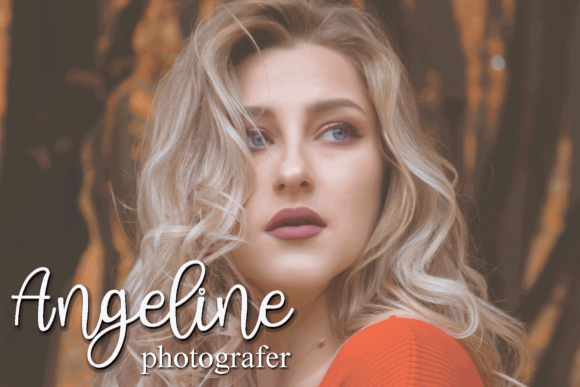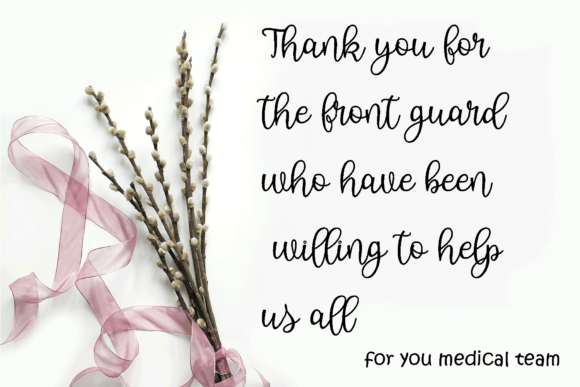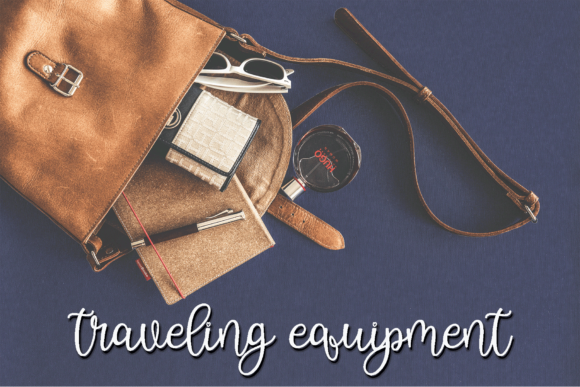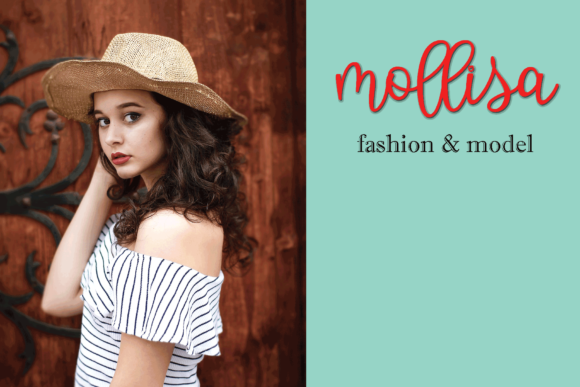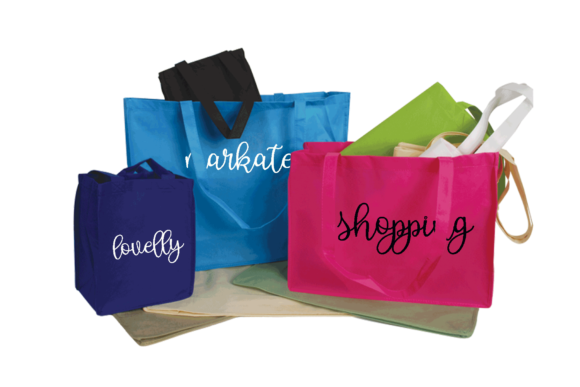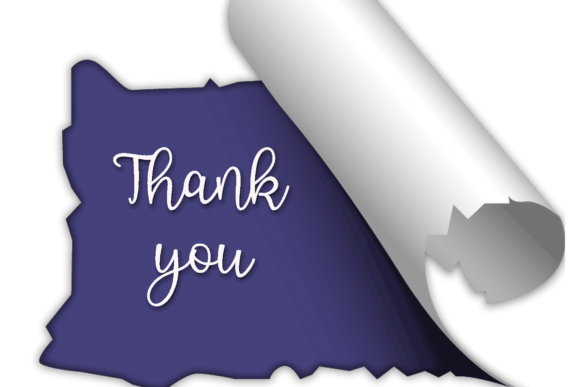
Introducing Handmade Font: Add a Touch of Whimsy to Your Designs
Are you tired of using the same old fonts in your designs? Do you want to add a personal touch that sets your work apart from the rest? Look no further than Handmade Font, a sweet and rounded calligraphy handwritten font that’s perfect for crafters, designers, and anyone looking to add a decorative touch to their projects.
What is Handmade Font?
Handmade Font is a beautifully crafted font that’s designed to bring a touch of whimsy and elegance to your designs. With its rounded calligraphy style, this font is perfect for creating eye-catching headings, titles, and text that will make your work stand out. Whether you’re designing a logo, creating a social media graphic, or crafting a handmade product, Handmade Font is the perfect choice.
Special Features to Enhance Your Designs
Handmade Font is more than just a beautiful font – it’s also packed with special features that will take your designs to the next level. Some of the features you can expect include:
- Alternate glyphs: Add some variety to your text with alternate glyphs that offer different styles and flair.
- Ligatures: Create beautiful connections between letters with ligatures that add a touch of elegance to your text.
- Swashes: Add a decorative touch to your text with swashes that can be used to create beautiful flourishes and borders.
Handmade Font is versatile and can be used for a wide range of design projects, including:
- Logo design: Create a beautiful and eye-catching logo that showcases your brand’s personality.
- Social media graphics: Add a personal touch to your social media graphics and make them stand out from the crowd.
- Handmade products: Add a touch of elegance to your handmade products, such as craft labels, packaging, and more.
- Stationery: Create beautiful stationery, including invitations, greeting cards, and more.
Why Choose Handmade Font?
With so many fonts to choose from, why should you choose Handmade Font? Here are just a few reasons why:
- Unique and eye-catching: Handmade Font is a unique and eye-catching font that will make your designs stand out from the crowd.
- Versatile: Handmade Font can be used for a wide range of design projects, making it a great addition to any designer’s toolkit.
- High-quality: Handmade Font is a high-quality font that’s designed to deliver beautiful results.
Get Ready to Add a Touch of Whimsy to Your Designs